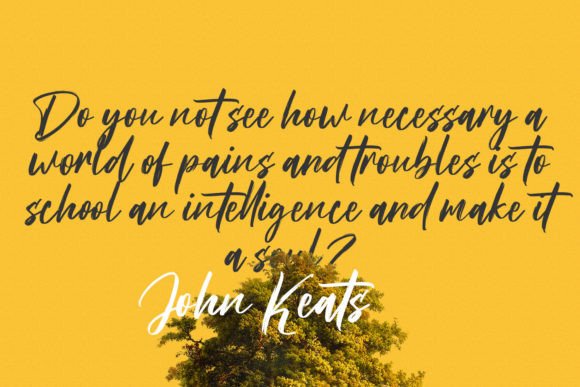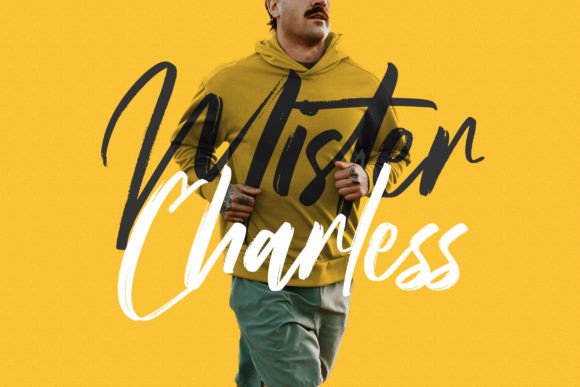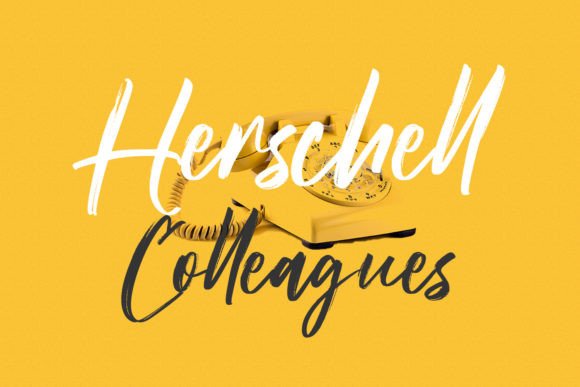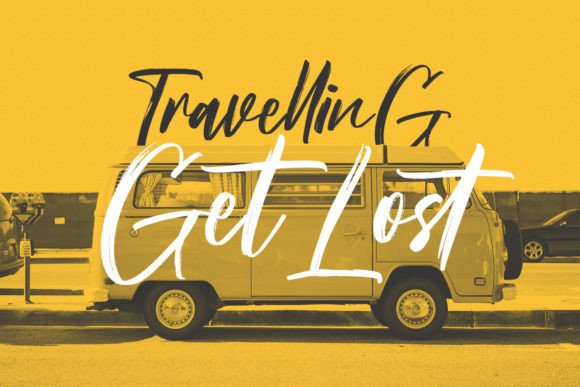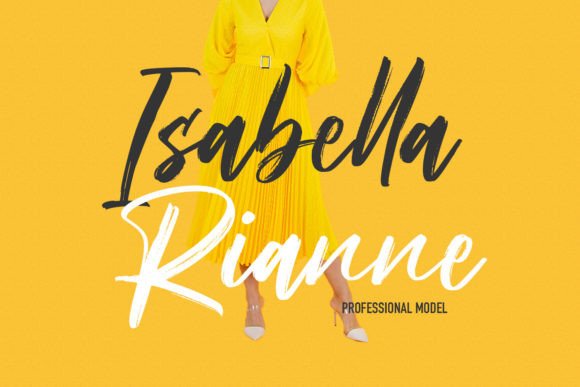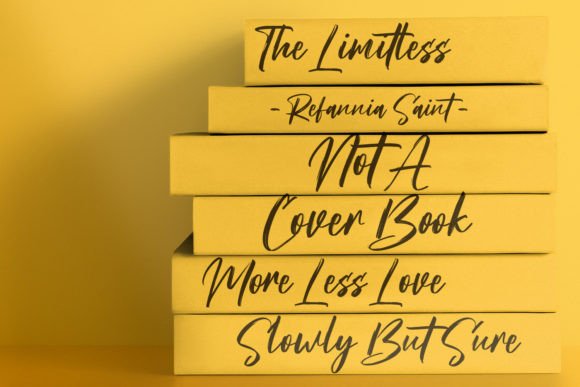
Freak Funky Font: The Ultimate Go-To for Creative Projects
Are you on the hunt for a font that adds a touch of personality to your creative projects? Look no further than Freak Funky, a fancy and cool handwritten brush font that’s perfect for a variety of applications. Whether you’re a designer, crafter, or simply someone who loves to get creative, Freak Funky is sure to become your new favorite go-to font.
What is Freak Funky Font?
Freak Funky is a unique and stylish handwritten brush font that’s designed to add a touch of whimsy to your projects. With its bold and expressive strokes, this font is perfect for making a statement. Whether you’re creating digital designs, crafting handmade cards, or designing presentations, Freak Funky is the perfect choice.
Features of Freak Funky Font
- Handwritten Brush Font: Freak Funky is a carefully crafted handwritten brush font that mimics the look and feel of traditional brush lettering.
- Fancy and Cool: This font is perfect for adding a touch of personality to your projects. Its bold and expressive strokes make it stand out from more traditional fonts.
- Versatile: Freak Funky can be used for a wide range of applications, from digital design to crafting and presentation design.
Uses for Freak Funky Font
Freak Funky is a versatile font that can be used for a wide range of creative projects. Here are just a few ideas to get you started:
- Crafts: Use Freak Funky to add a personal touch to your handmade crafts, such as cards, scrapbook pages, and other paper crafts.
- Digital Design: This font is perfect for digital designers who want to add a touch of personality to their designs. Use it for social media graphics, blog headers, and more.
- Presentations: Add a touch of whimsy to your presentations with Freak Funky. This font is perfect for titles, headings, and other design elements.
- Greeting Cards: Use Freak Funky to create unique and personalized greeting cards for special occasions.
Why Choose Freak Funky Font?
So why choose Freak Funky over other fonts? Here are just a few reasons:
- Unique Style: Freak Funky has a unique and stylish look that’s sure to make your projects stand out.
- Versatile: Freak Funky can be used for a wide range of applications, from digital design to crafting and presentation design.
- High-Quality: This font is carefully crafted to ensure high-quality results, every time.
Tips for Using Freak Funky Font
Here are a few tips for getting the most out of Freak Funky:
- Experiment with Sizes: Try using Freak Funky in different sizes to add visual interest to your projects.
- Pair with Other Fonts: Combine Freak Funky with other fonts to create unique and interesting typography.
- Use for Headings: Use Freak Funky for headings and titles to add a touch of personality to your projects.
- Have Fun: Don’t be afraid to get creative and have fun with Freak Funky! This font is all about adding a touch of whimsy to your projects.